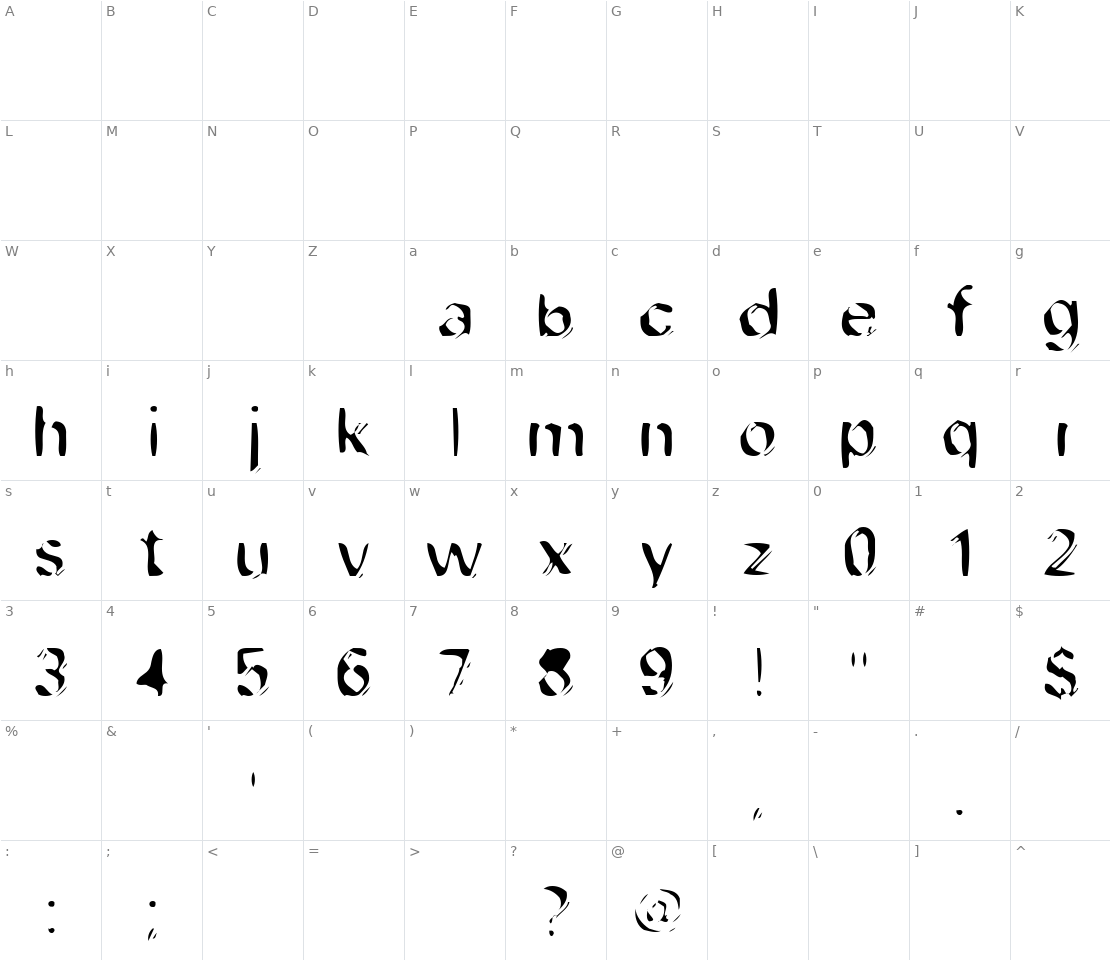
Dob File Type
Dob File Type is an experimental display face from Xerotype that warps and fractures its letterforms into something barely recognizable, pushing typography toward abstract art. The distortion is deliberate and aggressive, giving each character a strange, almost glitchy quality that resists easy categorization. Best reserved for headlines, posters, or editorial pieces where the type itself is meant to be the visual statement.